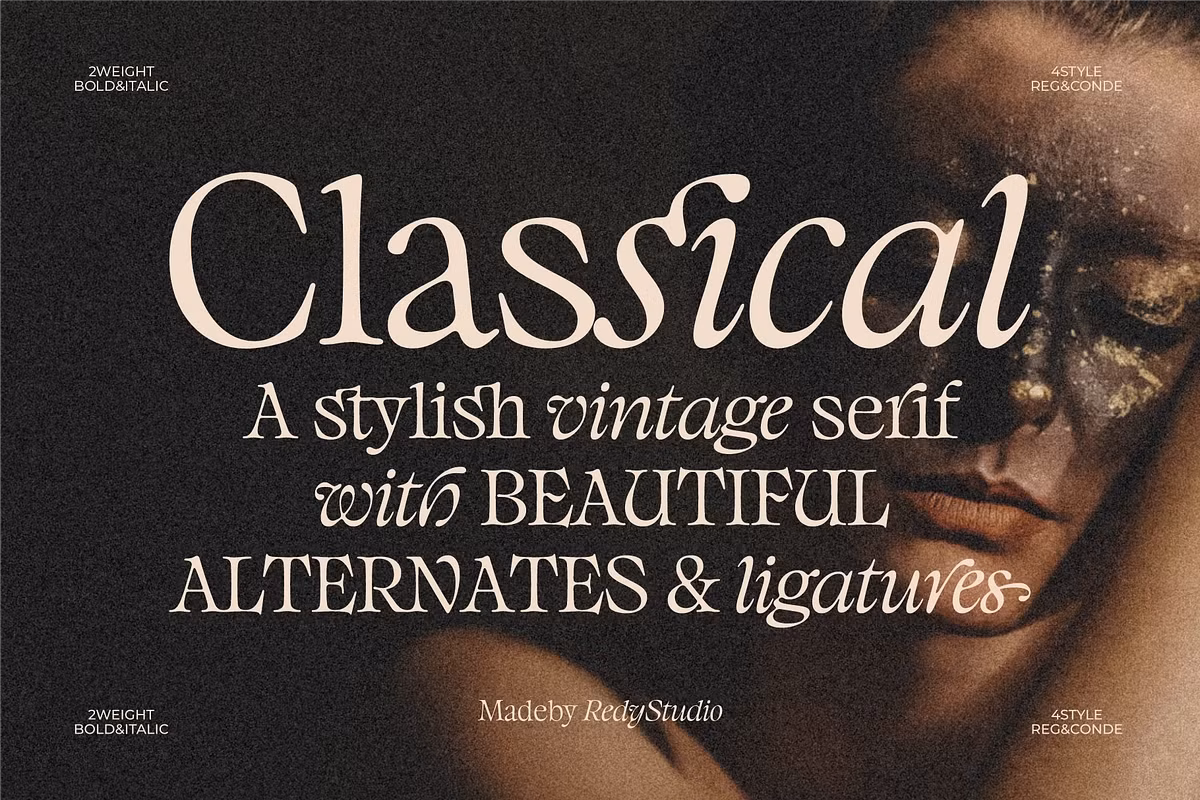
Classical serif fonts Free Download
Classical Serif Fonts Free Download
Classical Serif Fonts Free Download is a collection of elegant and timeless typefaces designed to bring sophistication and readability to your designs. Featuring traditional serif letterforms with balanced proportions and clean lines, these fonts are perfect for creating high-end logos, editorial designs, websites, branding materials, and more. Whether you're working on a corporate identity, a vintage-inspired project, or a luxury brand, Classical Serif Fonts Free Download provides you with classic style and professional polish. Experiment with these fonts in personal projects before purchasing a commercial license and add a touch of elegance to your designs with these beautifully crafted serif fonts.